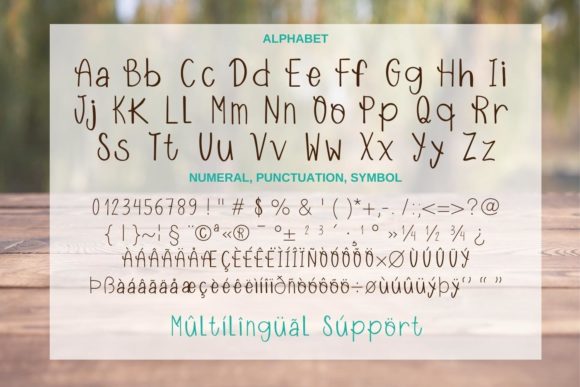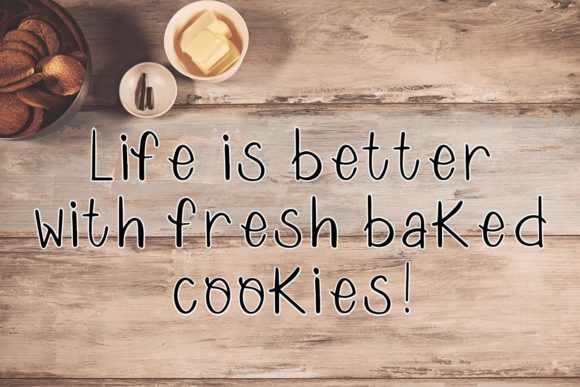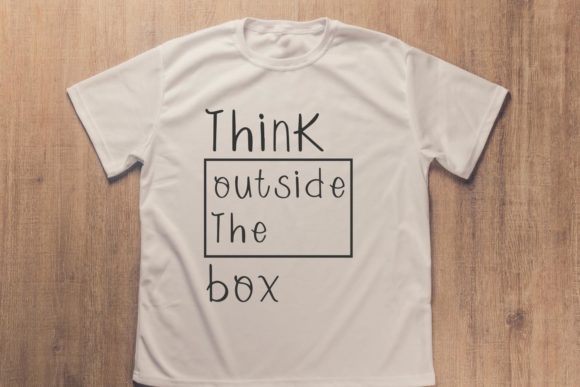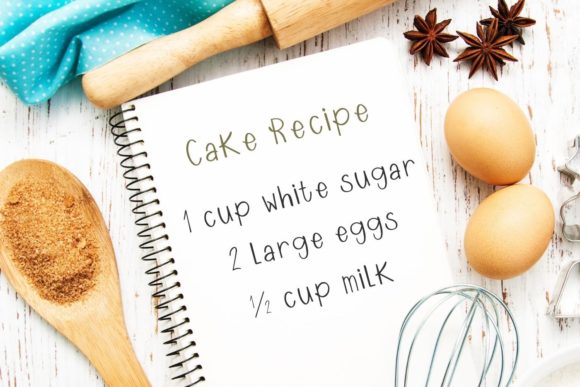
Introduction to Hey Jakes Font
Hey Jakes is a cute and playful handwritten font, perfect for fun designs, quotes, branding, logos, children’s designs, invitations, and more.
Hey Jakes is a cute and playful handwritten font, perfect for fun designs, quotes, branding, logos, children’s designs, invitations, and more!
Key Features of Hey Jakes Font